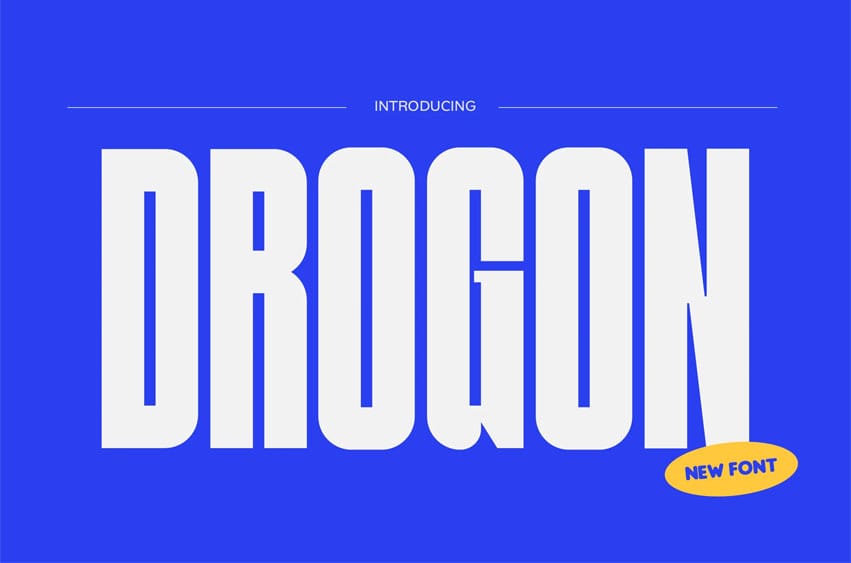
Drogon Font is a tall, bold, and powerful display typeface designed for energy-driven branding and sport-inspired visuals. Its condensed letterform with tight spacing and sharp edges radiates focus and determination—perfect for projects that demand strength, motivation, and a modern urban edge.
Built with geometric structure and strong vertical proportion, DROGON captures the intensity of athletic posters, street fashion ads, and editorial titles. Every stroke feels deliberate, reflecting confidence and impact without losing clarity or balance.
DROGON fits seamlessly into branding, sports campaigns, poster layouts, event promotions, editorial designs, and product packaging. Whether you’re creating a tennis tournament banner, motivational slogan, or streetwear logo, DROGON amplifies the visual punch while keeping the typography clean, structured, and memorable.
Its energetic presence makes it a go-to font for designers and startups who want their words to command attention in every visual format—from social media to billboard scale.
Key Features : Bold Visual Strength
- Ideal for standout titles, headlines, and branding identities.
Dynamic Proportions
- Tall letterforms with solid vertical emphasis create rhythm and movement.
Versatile Style
- Perfect for athletic, motivational, and editorial design themes.
Professional Usability
- Clean kerning, modern flow, and readable at multiple scales.
Unleash your message with Drogon—a typeface built to move, motivate, and dominate visual space. Perfect for designers, marketers, and brand creators who want to inject power and clarity into every project. Start your next design sprint with DROGON and let your typography speak strength.